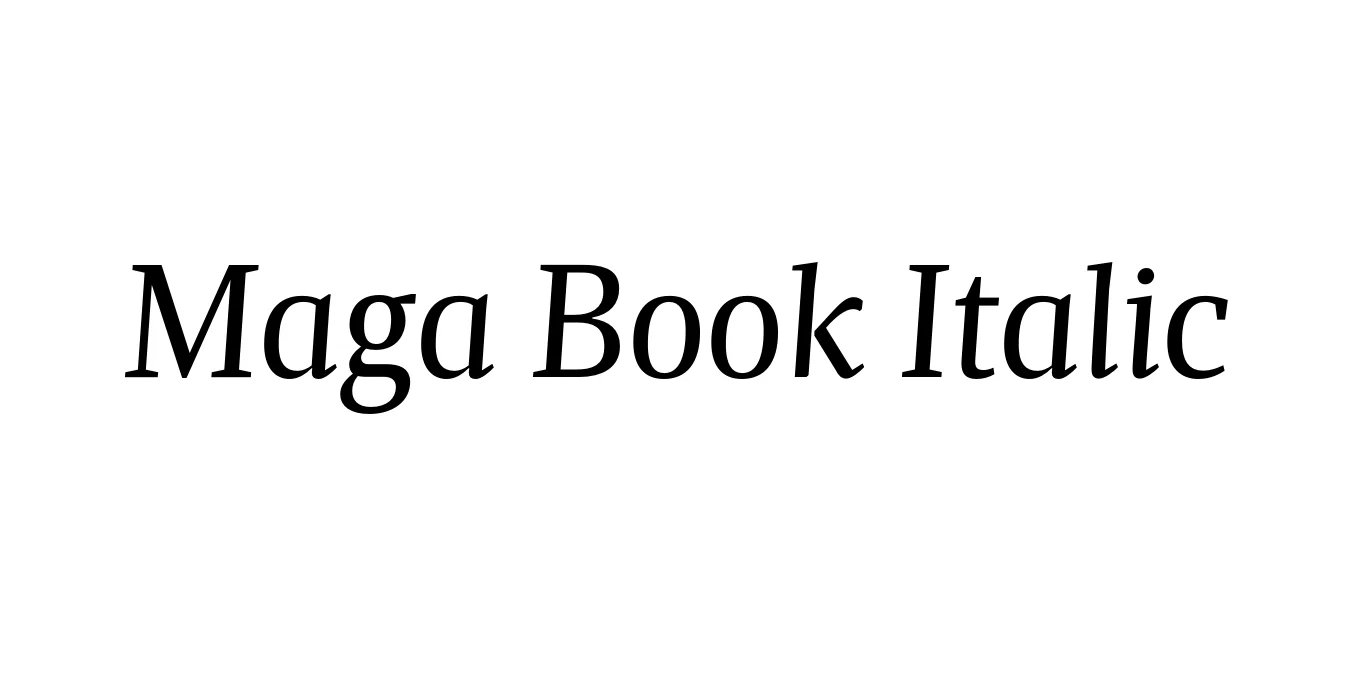
Maga Book Italic
Designed by Xavier Dupré
Maga is a serif typeface designed by the renowned type designer Xavier Dupré, released through TypeTogether. It is characterized by its slightly condensed proportions and a distinctive mechanical feel that balances traditional calligraphic roots with modern construction. The Maga Book Italic weight offers a graceful slant that maintains legibility while introducing a fluid, humanist touch to text-heavy layouts.
The design features sharp terminals and open counters, making it particularly effective for editorial design where space is at a premium. Its sturdy structure allows it to perform well both in printed books and on digital screens. The italic variant is not merely a slanted version of the roman but a redesigned complementary style that adds emphasis and elegance to magazines, long-form articles, and literary works.
Maga Book Italic Best Uses
Perfect for magazines and newspaper body text due to its condensed nature.
Ideal for long-form literature requiring a classic yet modern feel.
Works exceptionally well for e-books and online journals.